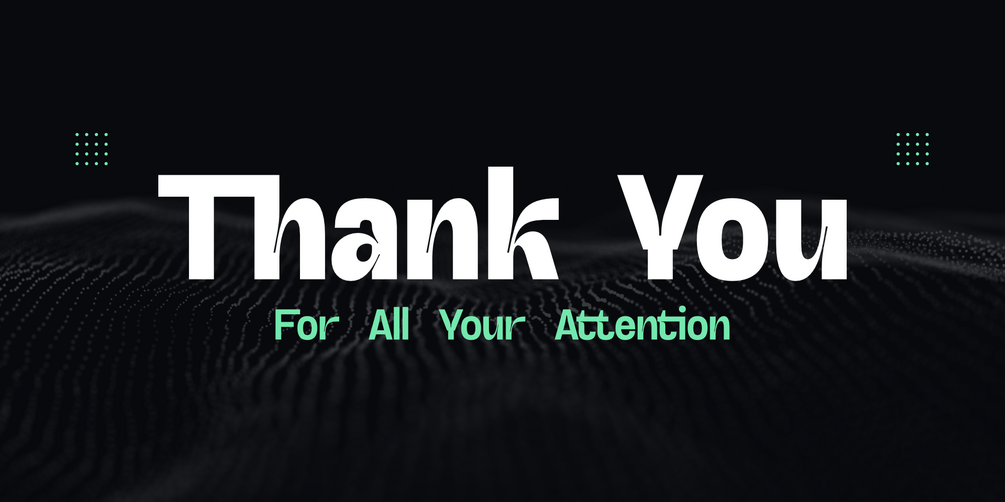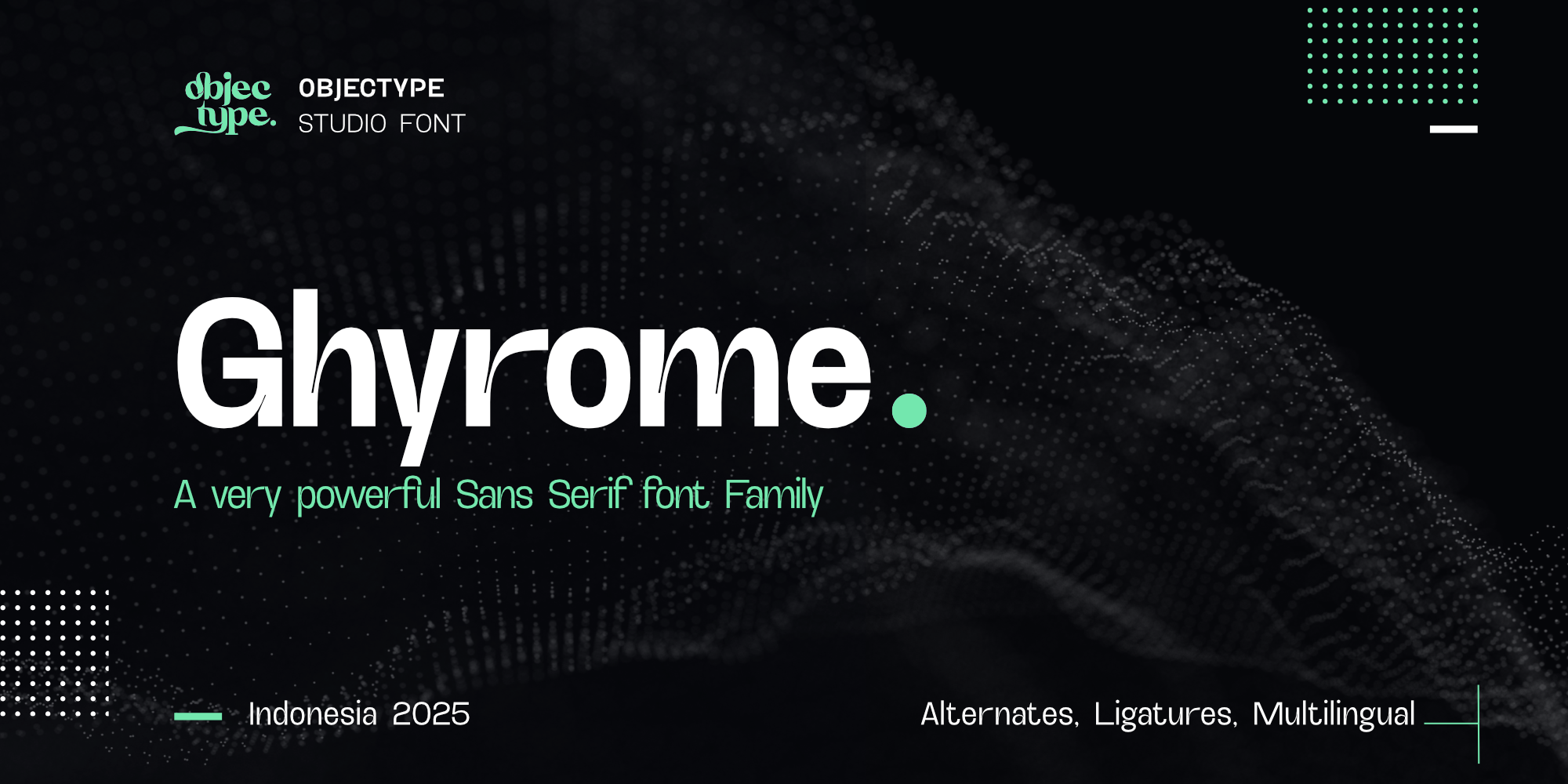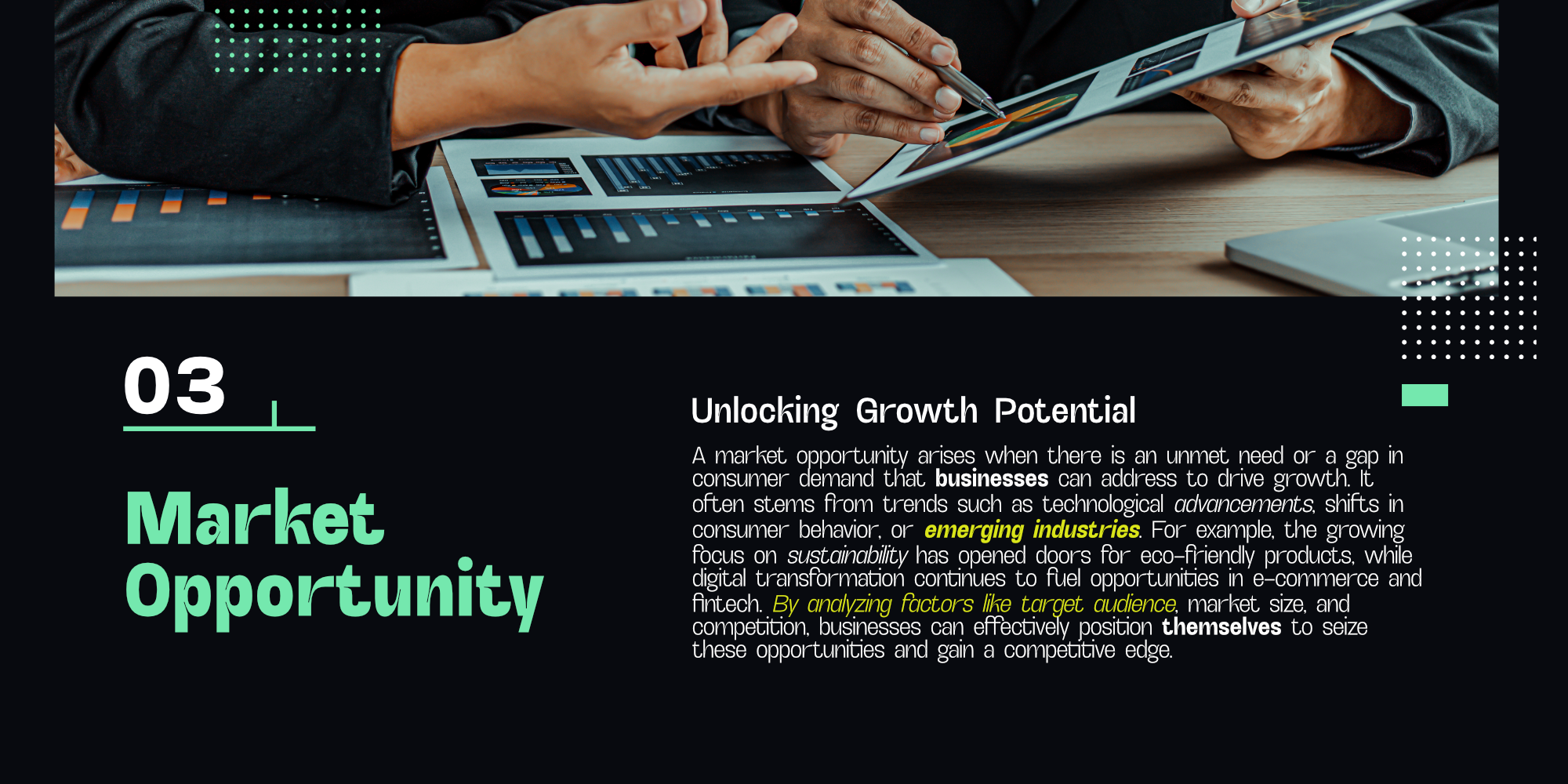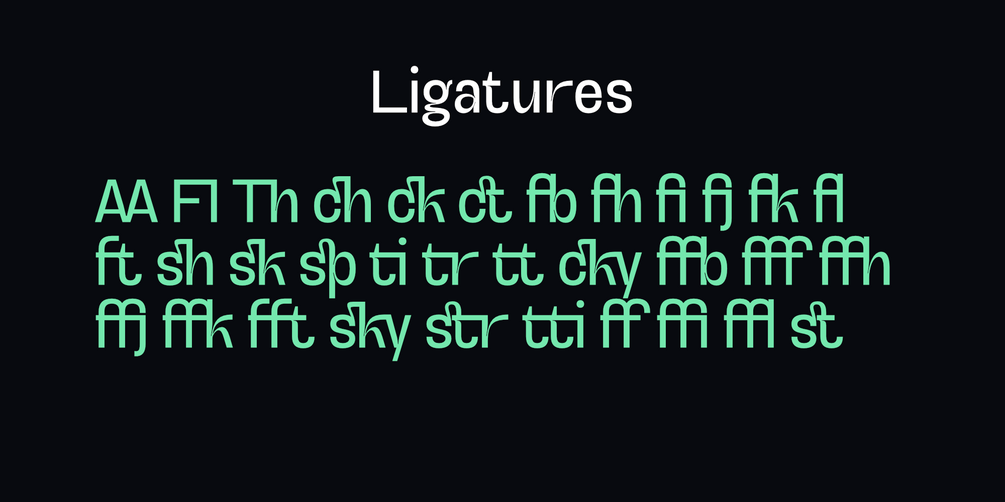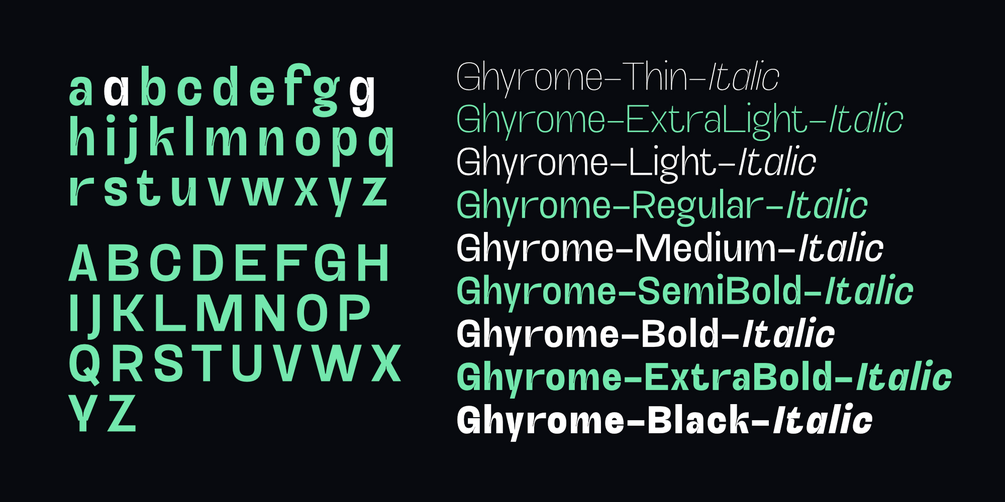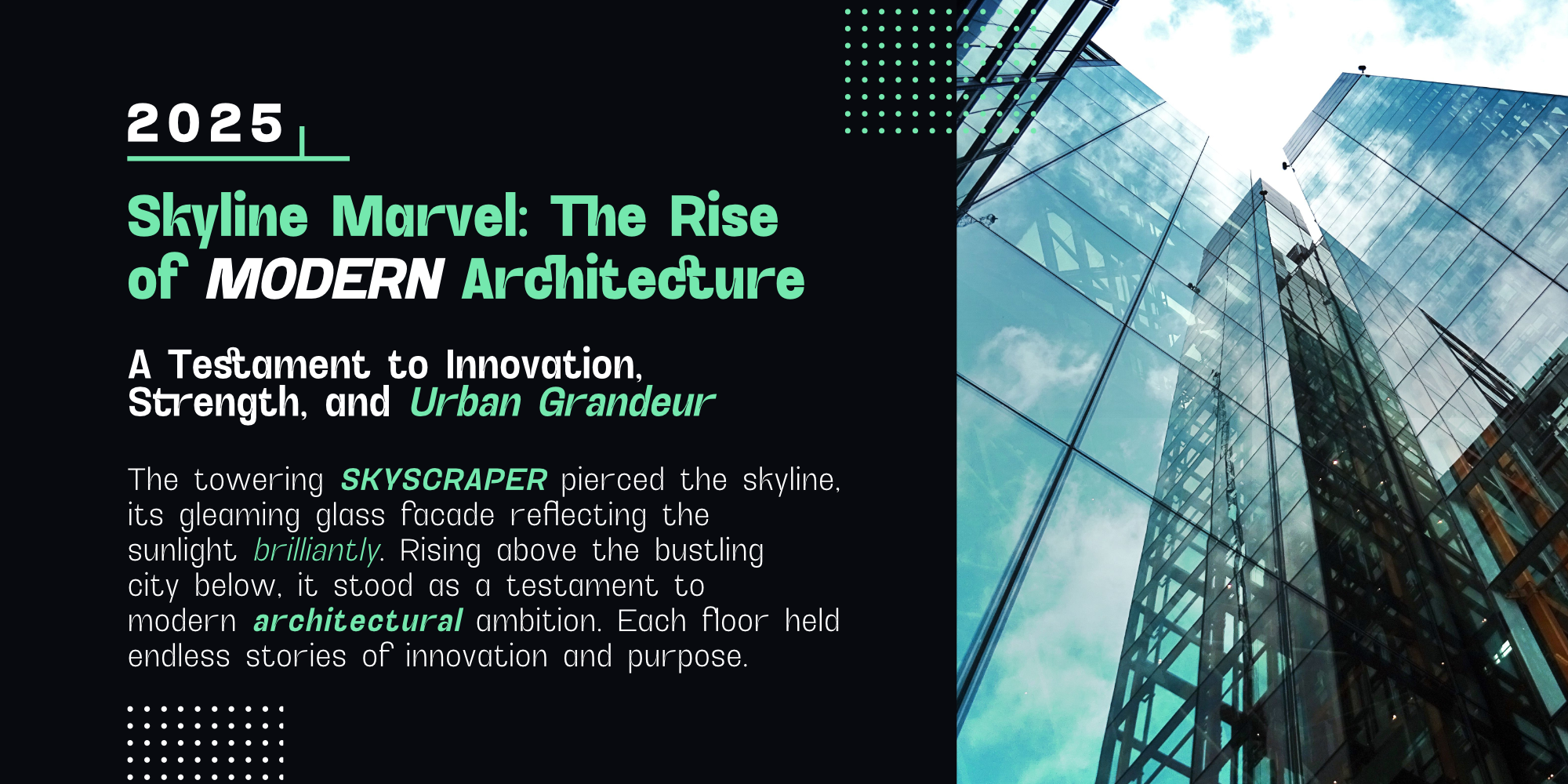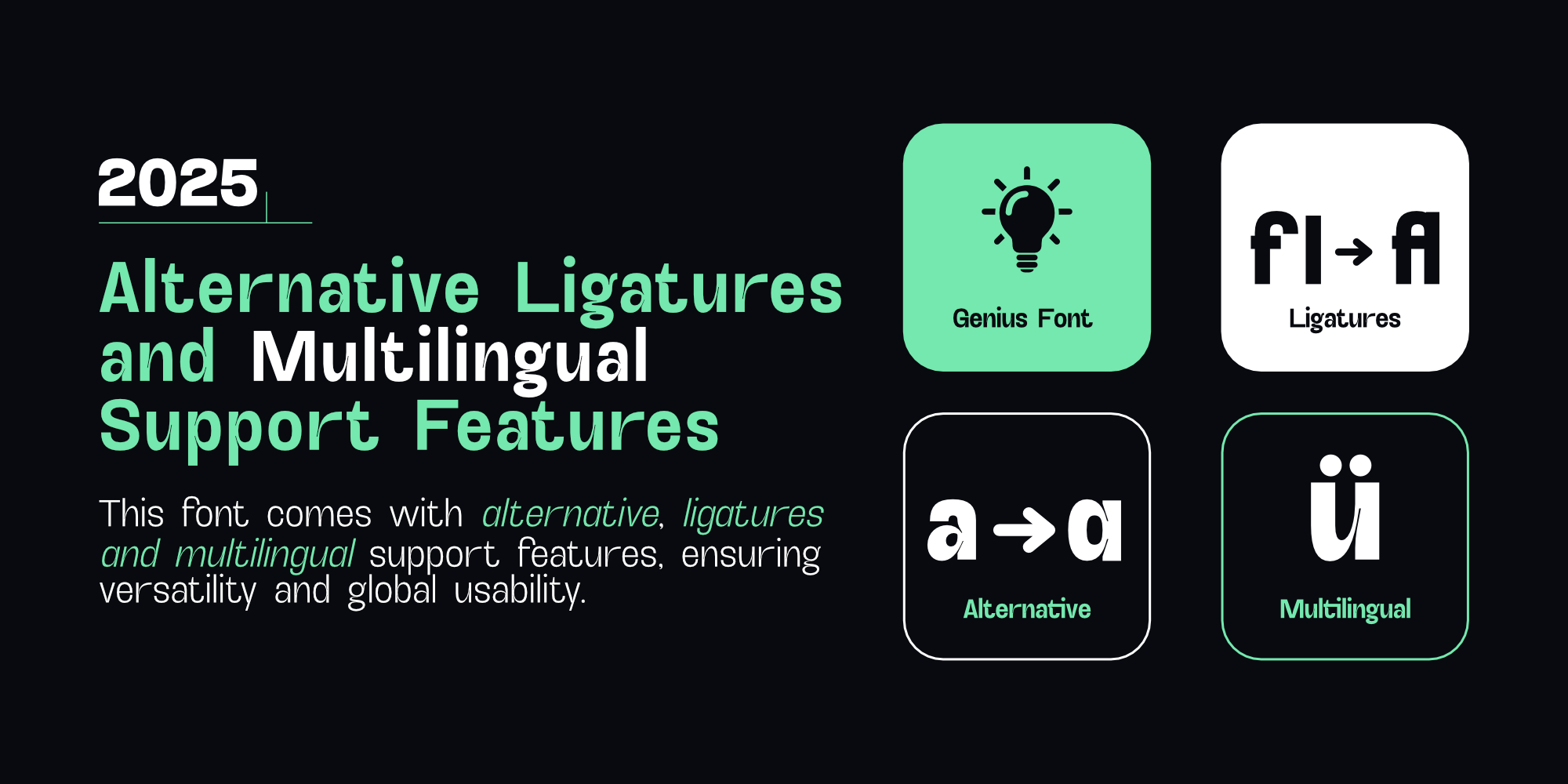
Ghyrome: A Futuristic & Minimalist Font for Modern Designs
πŸ”€ About Ghyrome Font
Ghyrome is a modern font with a futuristic and minimalist style, perfect for delivering a bold, innovative impression. Here are its main features:
• πŸš€ Futuristic & Minimalist Design β€” Designed to deliver a professional, innovative, and edgy look.
• βœ‚οΈ Creative Letter Cuts β€” Unique styling adds dynamic character while maintaining readability πŸ‘“.
• βš–οΈ Balanced Weight Contrast β€” Combines bold and thin elements in harmony.
• πŸ”· Geometric Shapes β€” Sharp, modern shapes make it visually attractive.
• πŸ”’ 18 Styles Total β€” Includes italic versions for flexible design options πŸ“.
• πŸ”§ Highly Versatile β€” Ideal for branding, logos, tech posters, digital media πŸ“±, and professional prints πŸ–¨οΈ.
• πŸŒ‘ Optimized for Dark Backgrounds β€” Design elements stand out clearly on dark themes.
• πŸ”— Ligatures & Alternates β€” Advanced OpenType features like ligatures and alternate characters πŸ”„.
• 🌍 Multilingual Support β€” Covers multiple languages for global use.
• πŸ“ Precise Kerning & Metrics β€” Ensures polished and aesthetic results in every layout 🧩.
• βš™οΈ Tech-Inspired β€” Perfect for projects that emphasize technology, progress, or creativity πŸ“ˆπŸŽ¨.